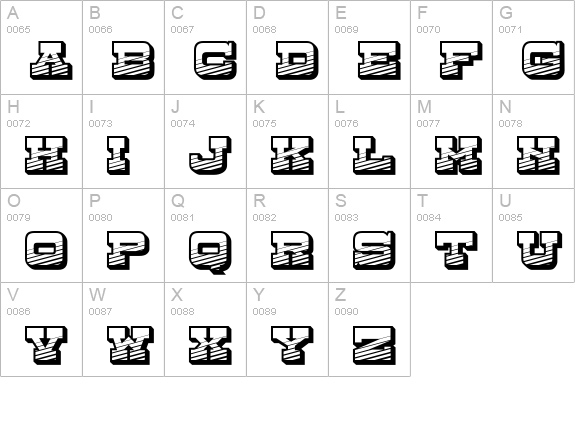
The Dry Goods Emporium SmC JL font is a charming and versatile typeface that exudes a vintage aesthetic with a modern twist. Its elegant and whimsical design makes it perfect for a wide range of projects, from branding and packaging to invitations and social media graphics. The intricate details and unique flourishes of this font add a touch of sophistication and style to any design. What sets Dry Goods Emporium SmC JL font apart is that it is freely available to download at FontsMarket.com. This means that you can easily access and use this stunning font in your projects without any cost. Whether you're a seasoned designer looking to add a new font to your collection or a beginner exploring typography for the first time, this font is a fantastic choice that will elevate your designs to the next level. Download Dry Goods Emporium SmC JL font today and unleash your creativity with this beautiful and versatile typeface.